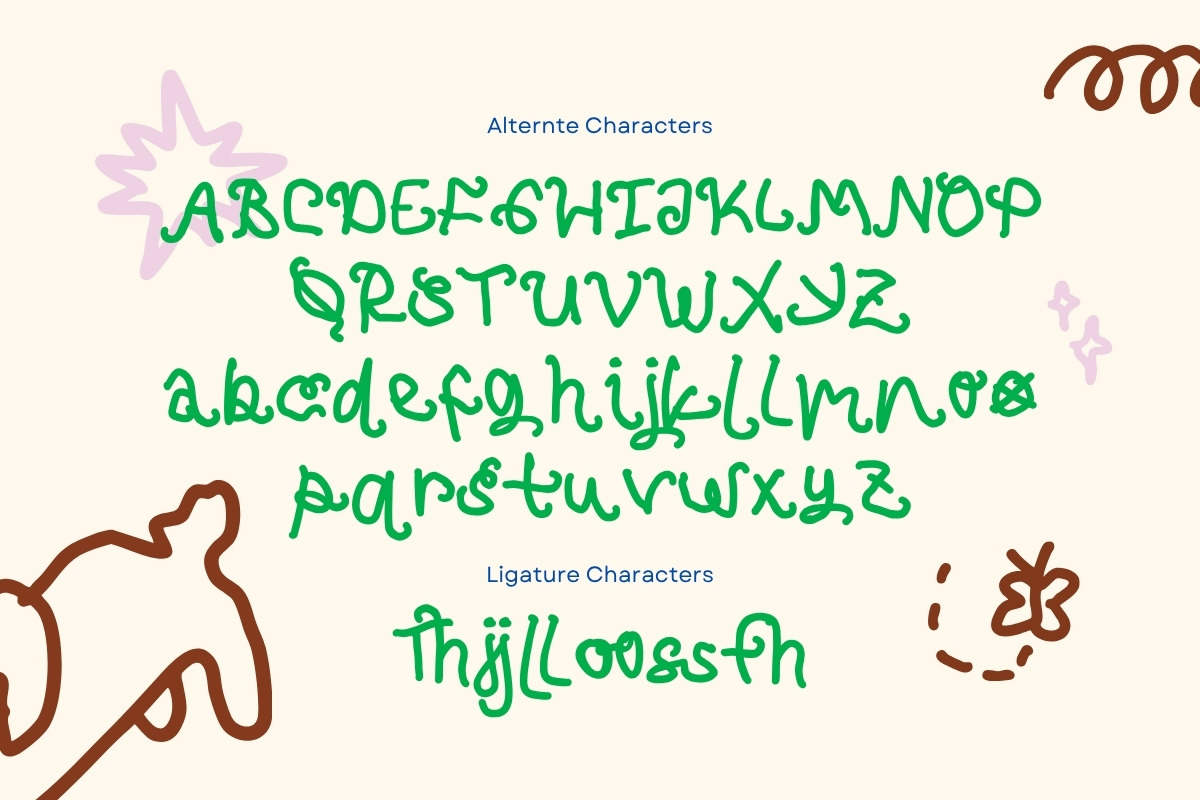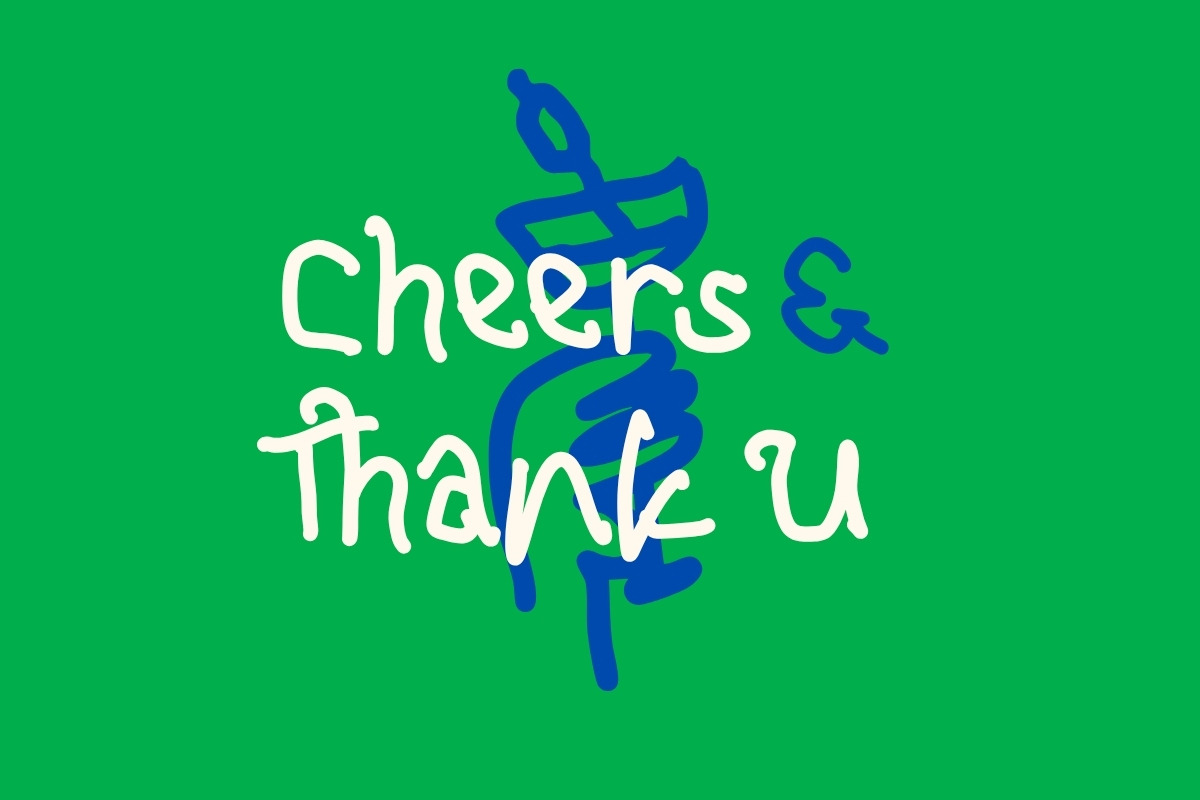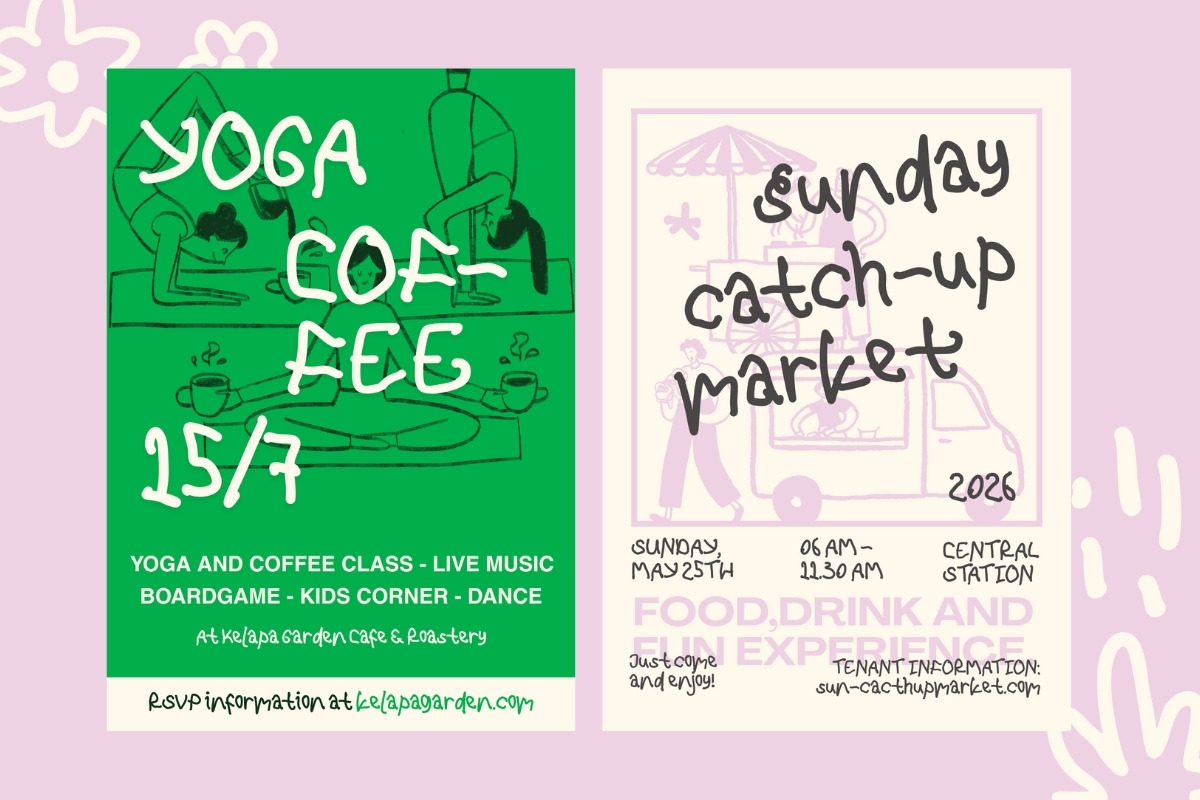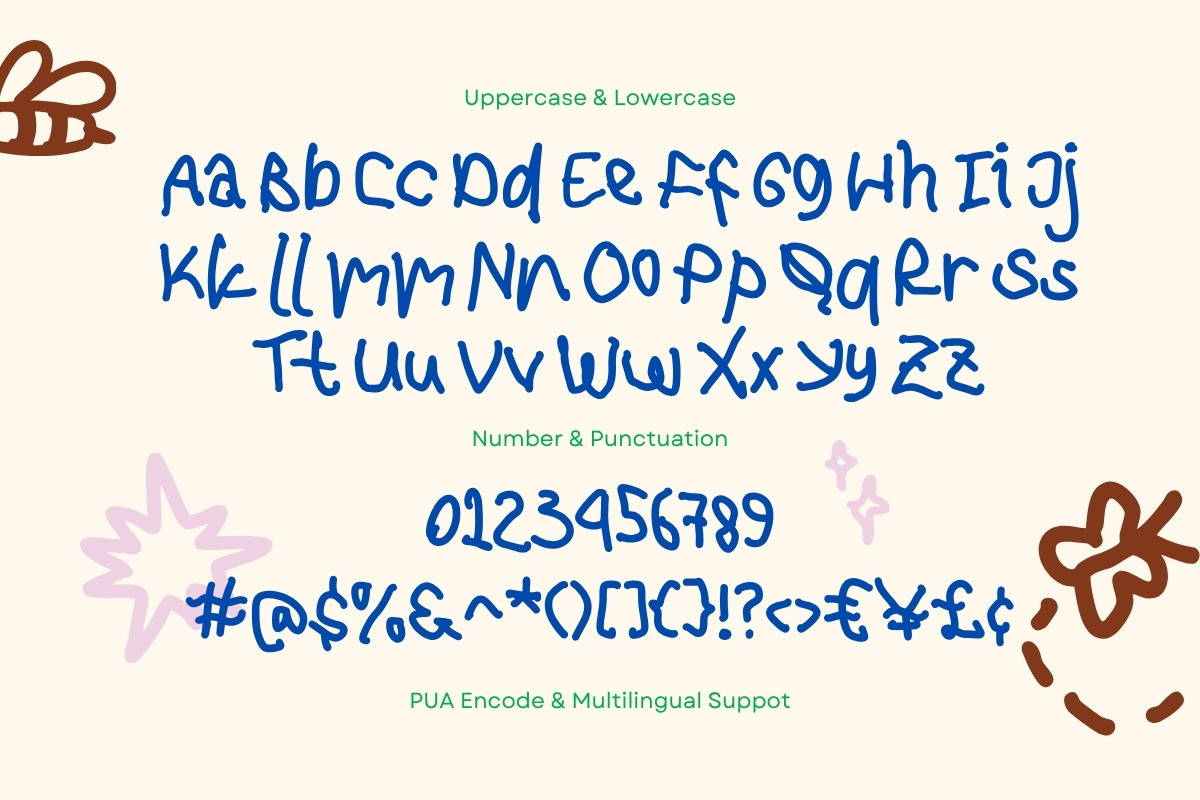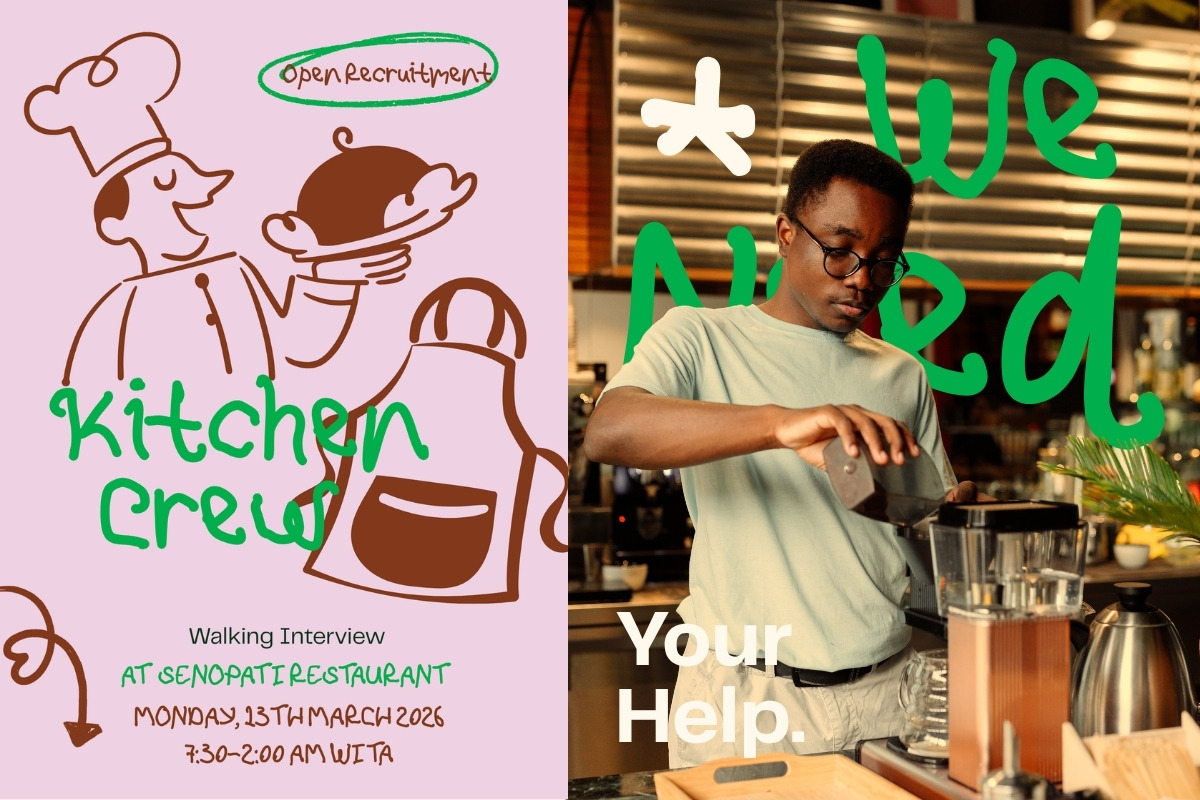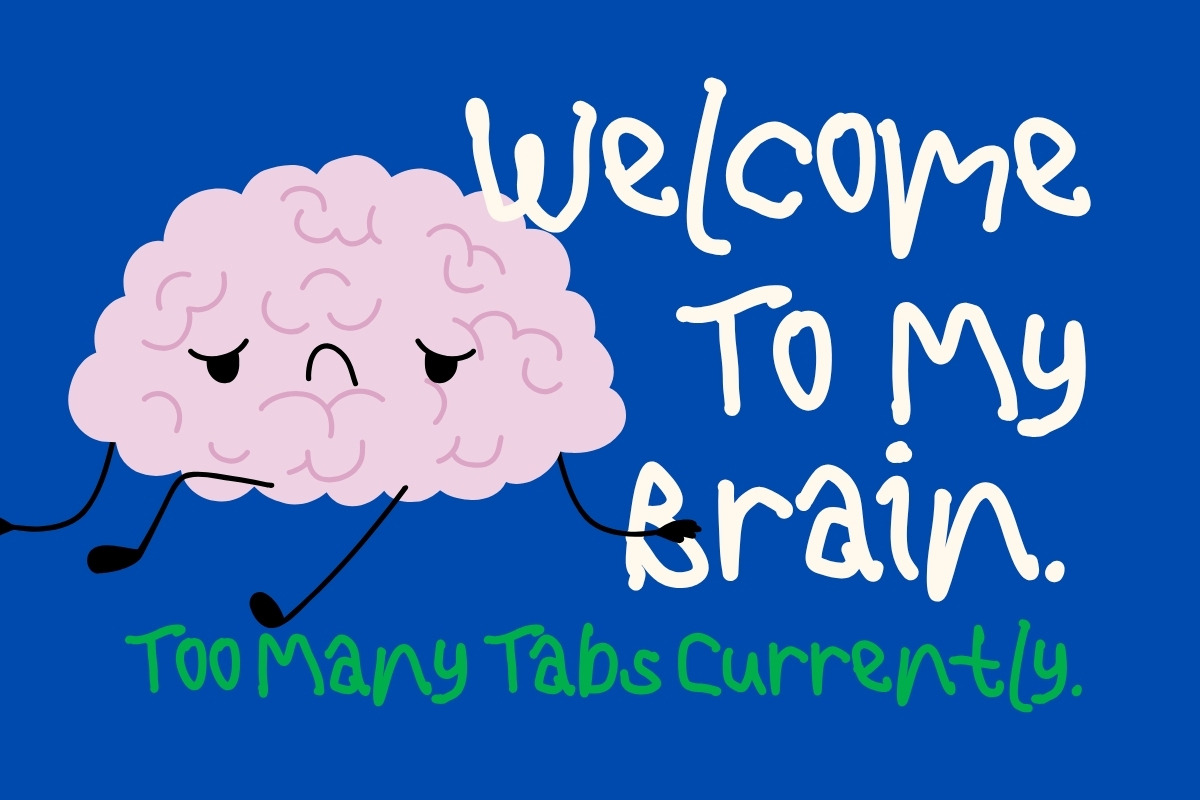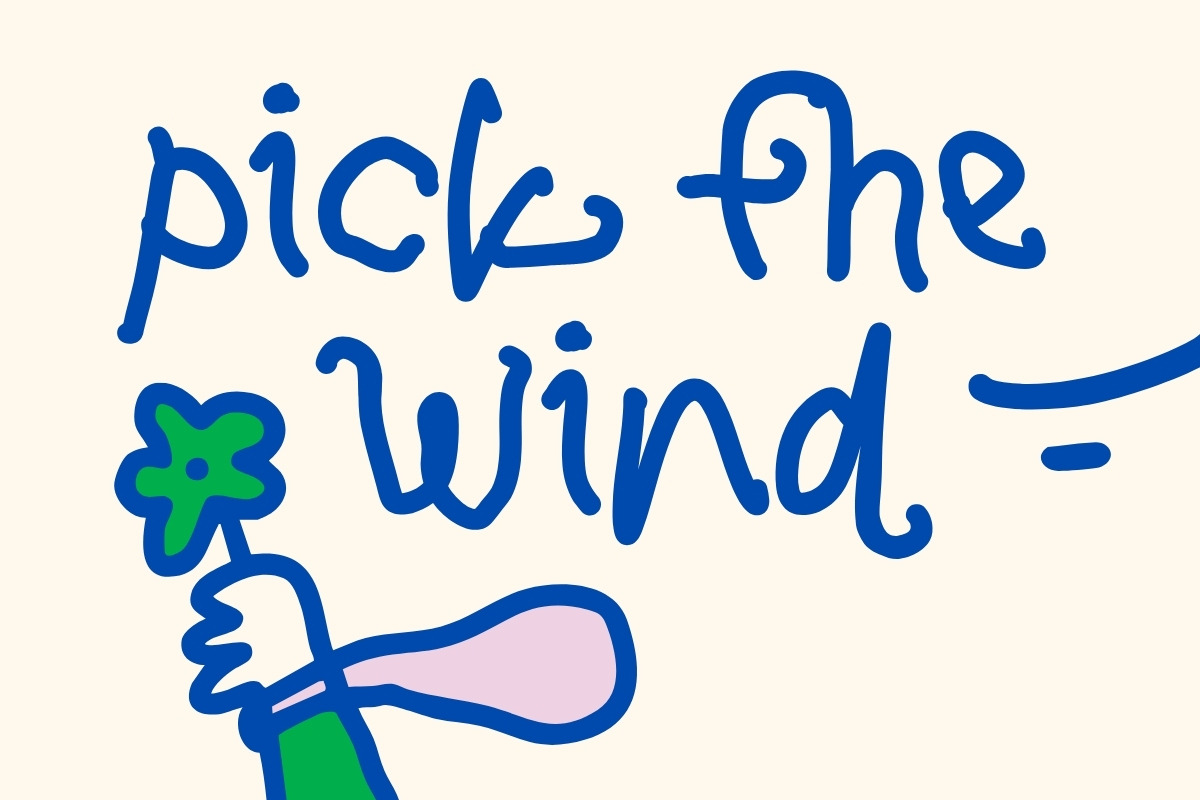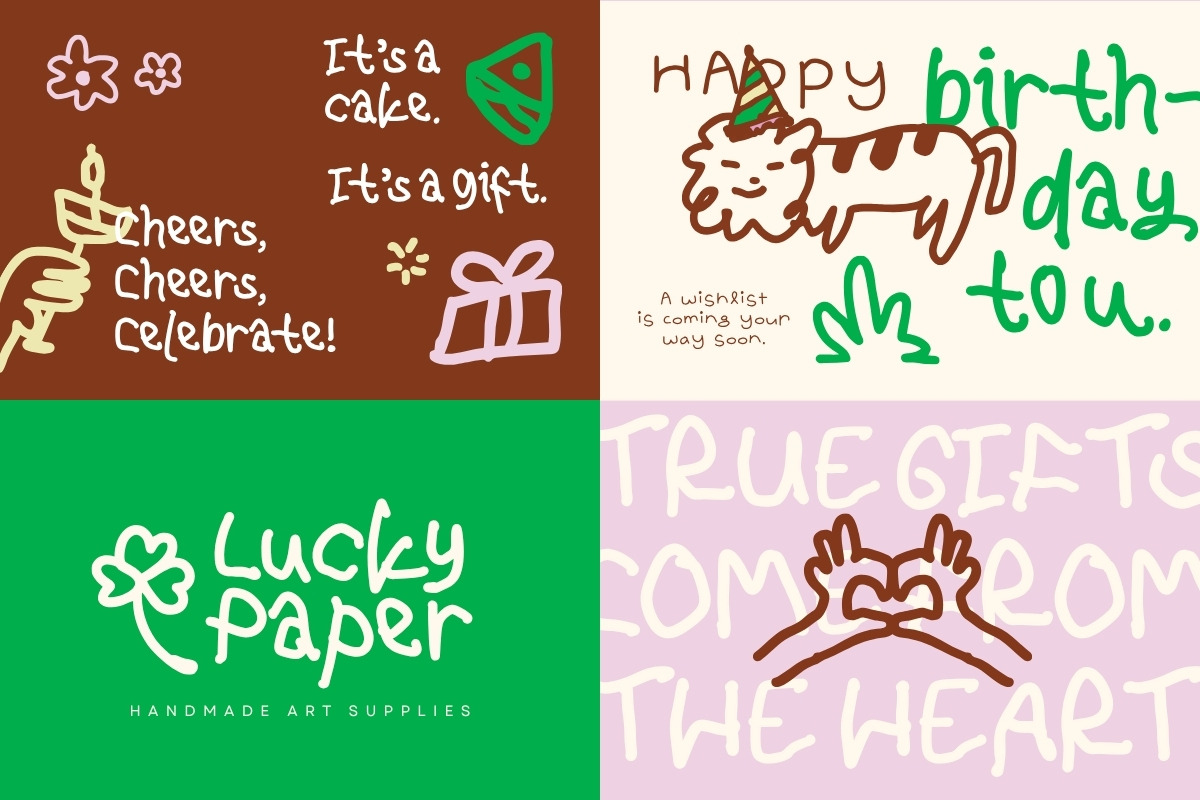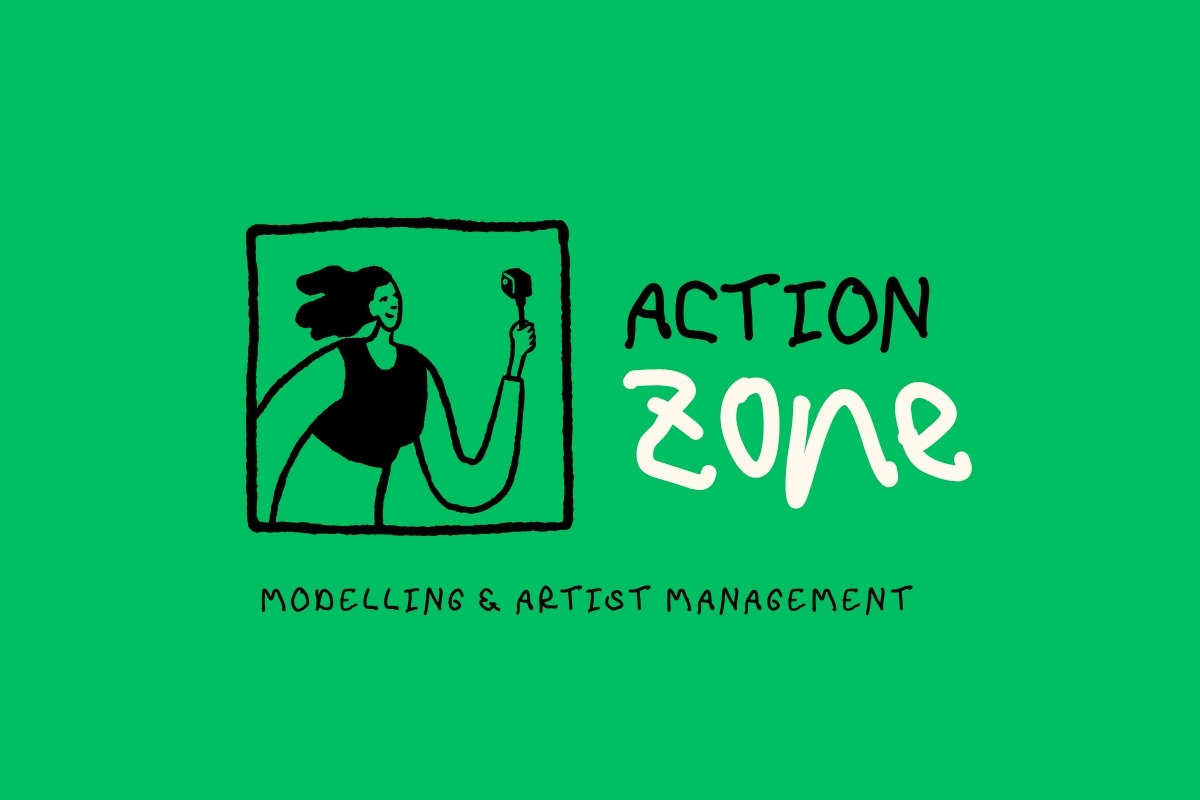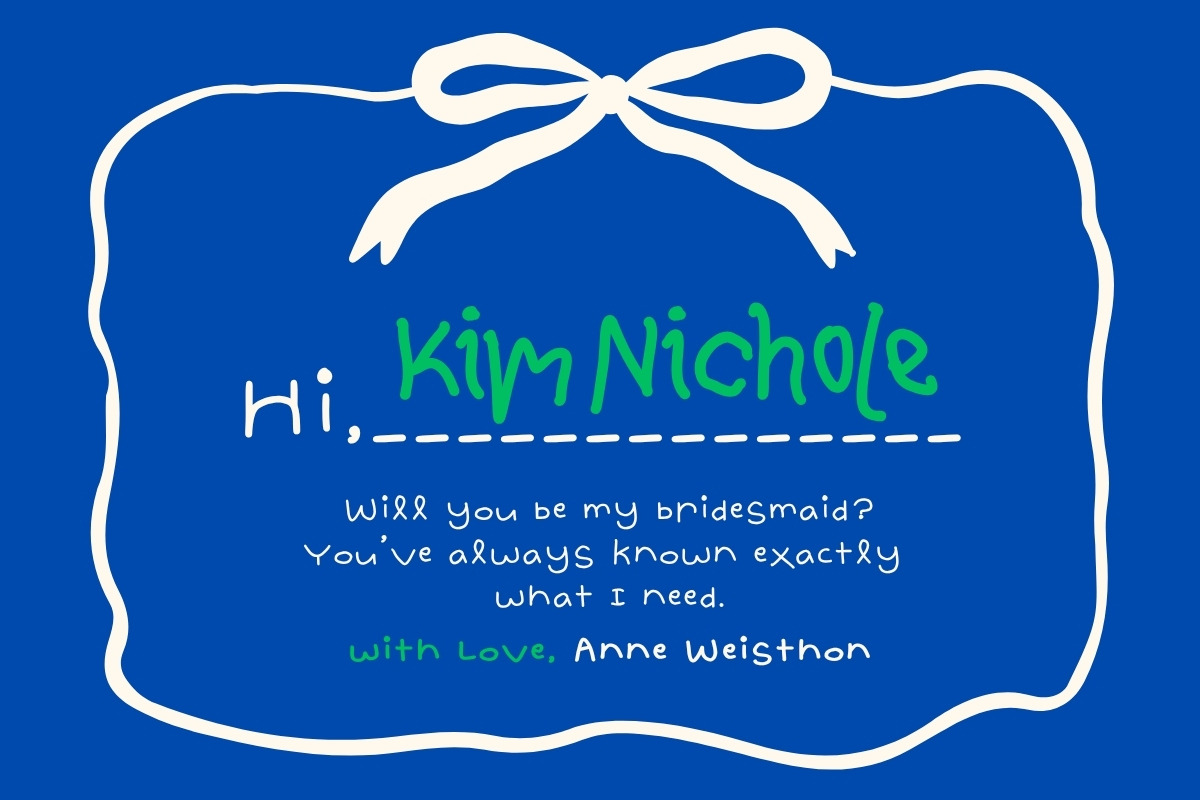
Wrong Hand Messy Lefty Handwriting
Not too neat, not too serious — just the right kind of weird. Wrong Hand _is a playful handwritten font created with the left hand, _bringing carefree doodle vibes, imperfect curves, and a cute chaotic style perfect for posters, stickers, packaging, and fun creative projects.
Features :Uppercase & lowercase, Numbers and punctuation, Alternates or Ligatures, Multilingual support & PUA encoded